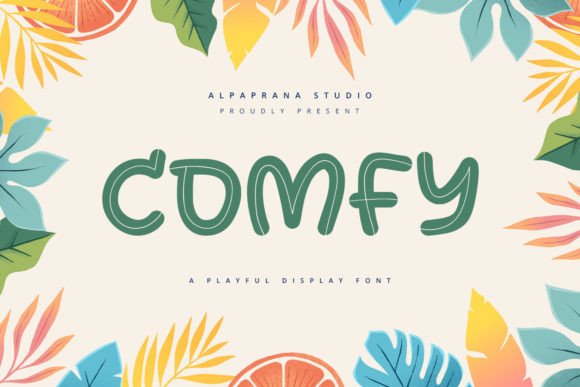
The Comfy Font family, with its warm and friendly vibe, is here to elevate your design game. Our font collection is an enchanting blend of playfulness and authenticity, like a gentle breeze carrying joyous laughter.
Dive into the world of Comfy fonts, where you'll find a range of styles that will mesmerize and enchant. Each font carries an aura of comfort and warmth, adding a touch of whimsy to every project.
Imagine your designs radiating an irresistible charm, captivating audiences with their playful yet polished presence. Whether you're crafting logos that capture hearts or designing posters that spark imaginations, Comfy fonts will transform your creations into unforgettable experiences.
With a touch of Comfy, your typography will dance across screens and pages, leaving a trail of smiles and wonder. Get ready to embark on a creative journey where comfort and creativity intertwine, where every design becomes a captivating expression of your unique style.